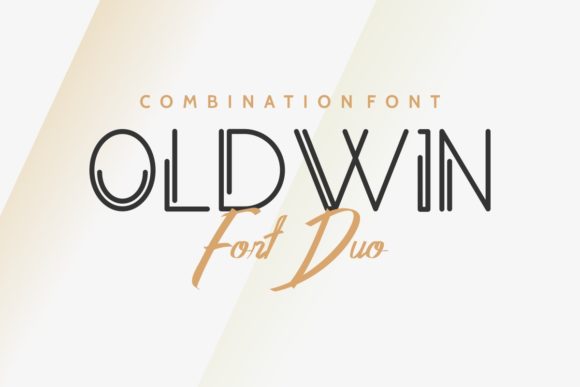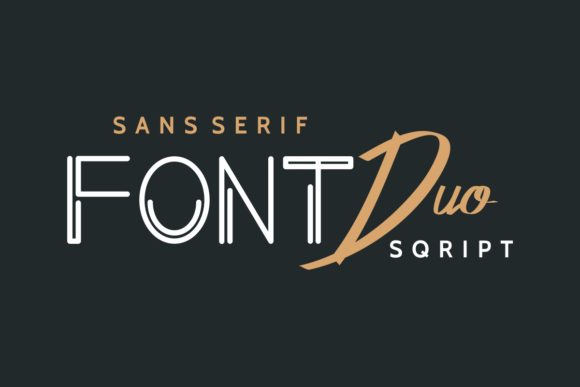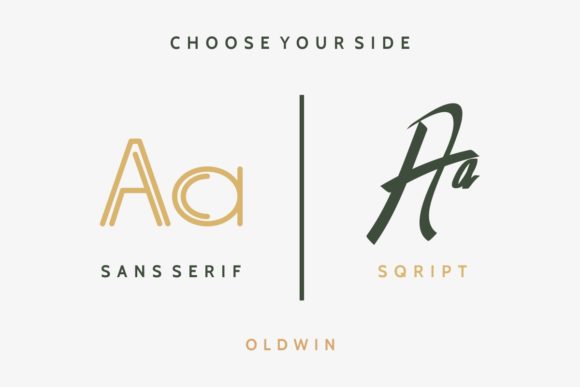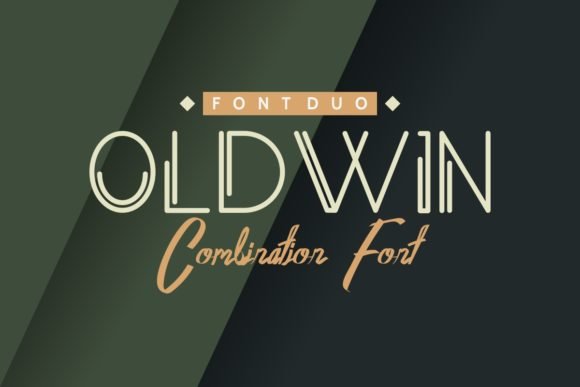
Introduction to Oldwin Font
Oldwin is a classic font duo with an incredible charm.
Get inspired by its unique feel .
Key Features of Oldwin Font
Why Choose Oldwin Font?
Oldwin Font offers exceptional quality and versatility, making it a valuable addition to your design toolkit. Whether you’re creating for personal projects or commercial use, Oldwin Font delivers professional results.